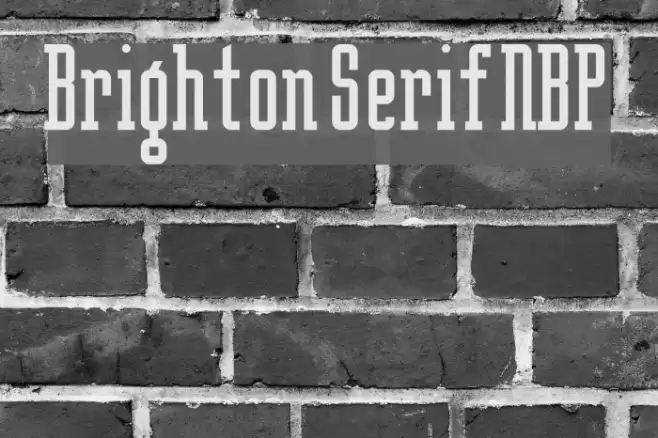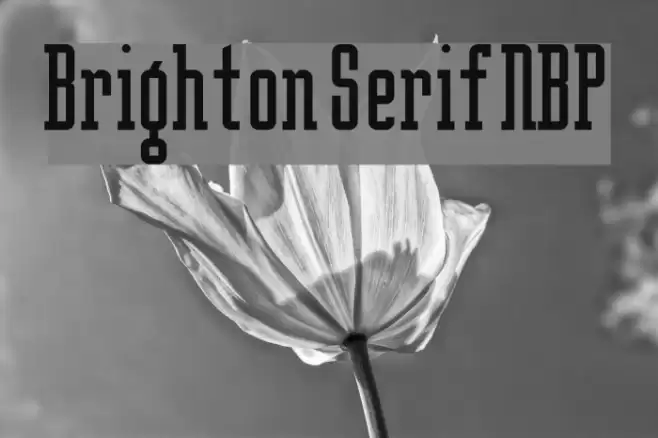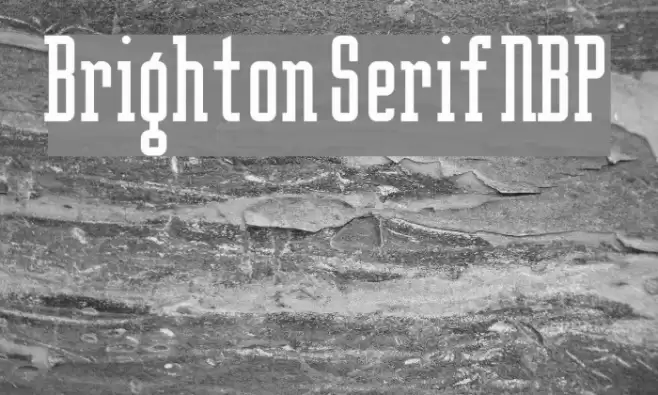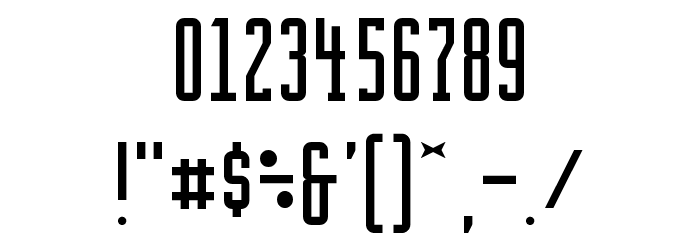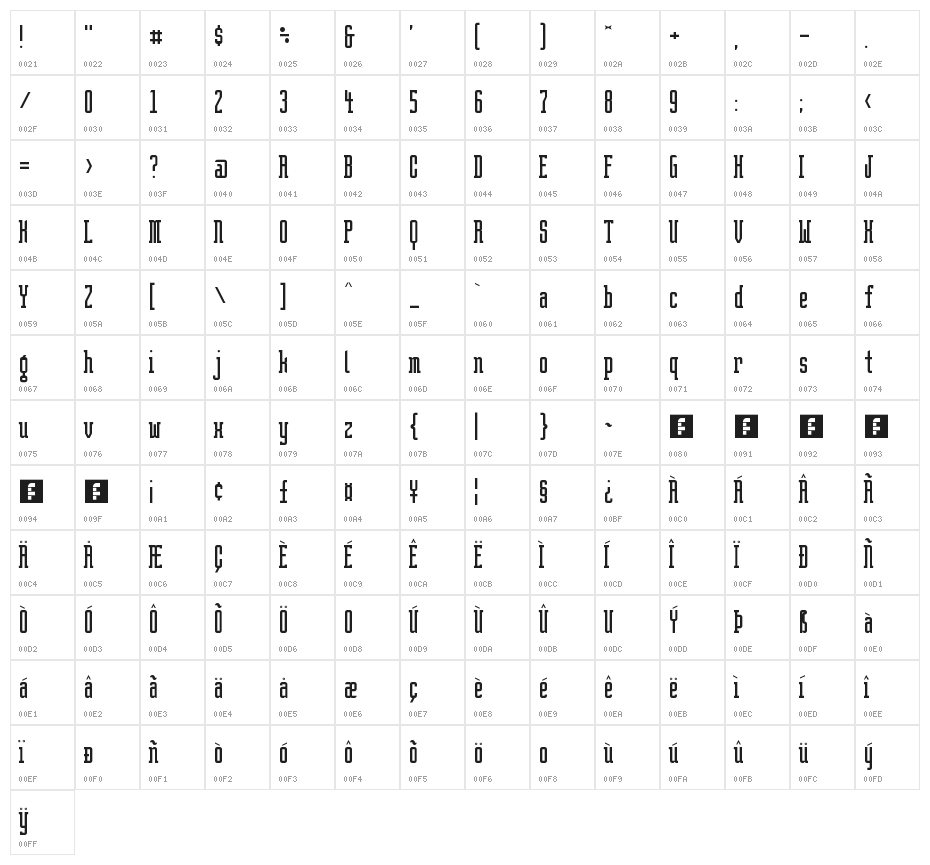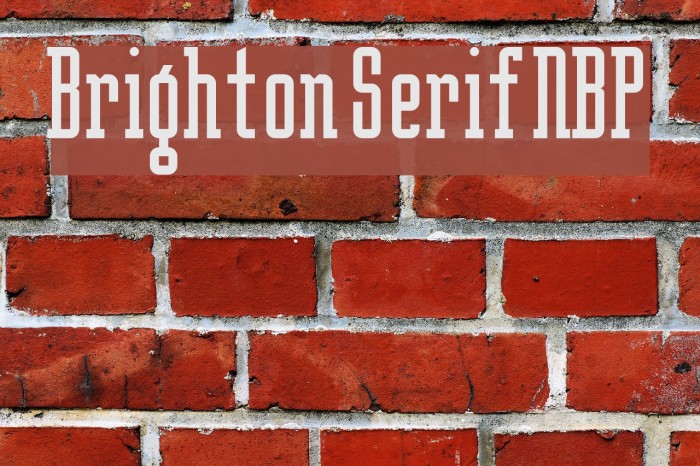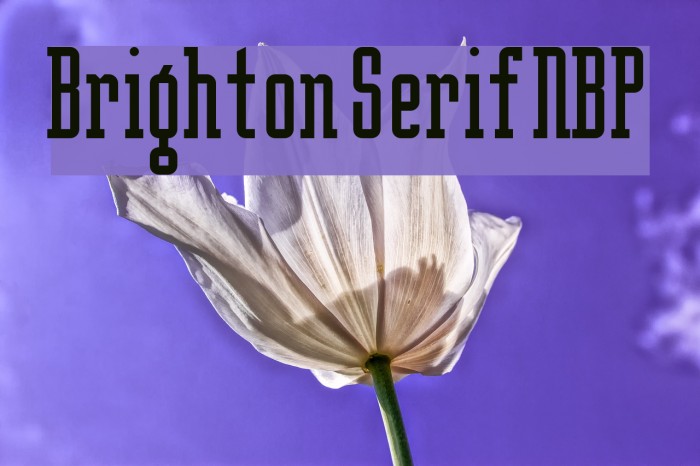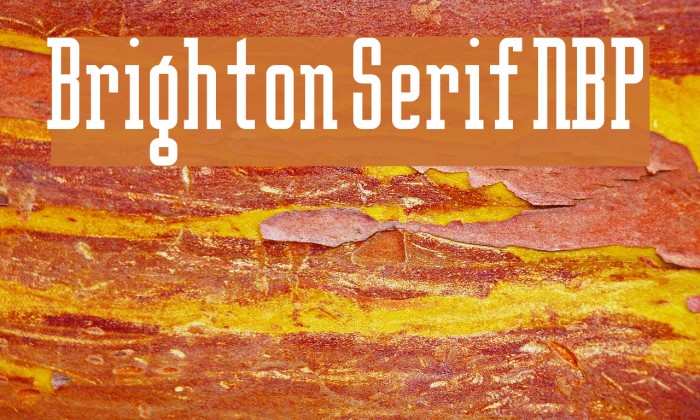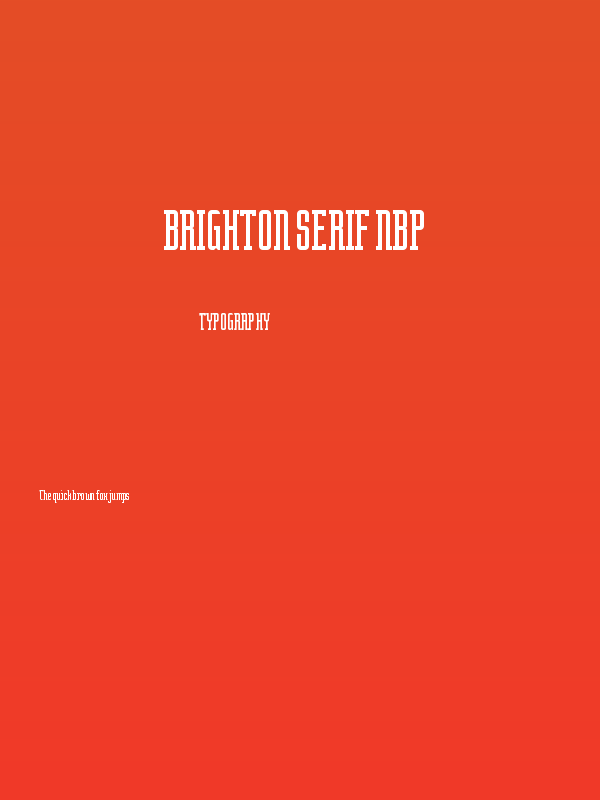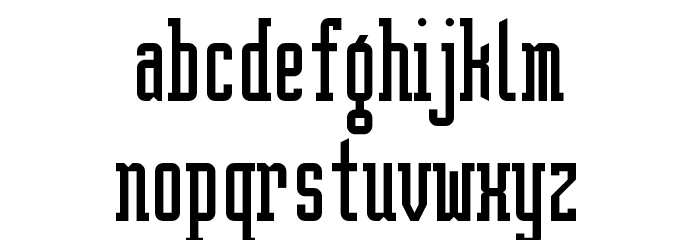
This font features a bold and striking serif style with a strong presence. The uppercase letters are tall and commanding, while the lowercase letters maintain a consistent height, providing a balanced look. The numerals are clear and distinct, making them easily readable. Special characters are designed with the same boldness, ensuring they stand out. The font's overall appearance is reminiscent of vintage typefaces, yet it maintains a modern edge, making it versatile for various design needs.
A bold, vintage-inspired serif font with a modern twist from Uncategorized fonts.
- Proposed Projects: Ideal for branding, poster design, headlines, and any project requiring a strong, vintage aesthetic.
- Overall Style: Vintage